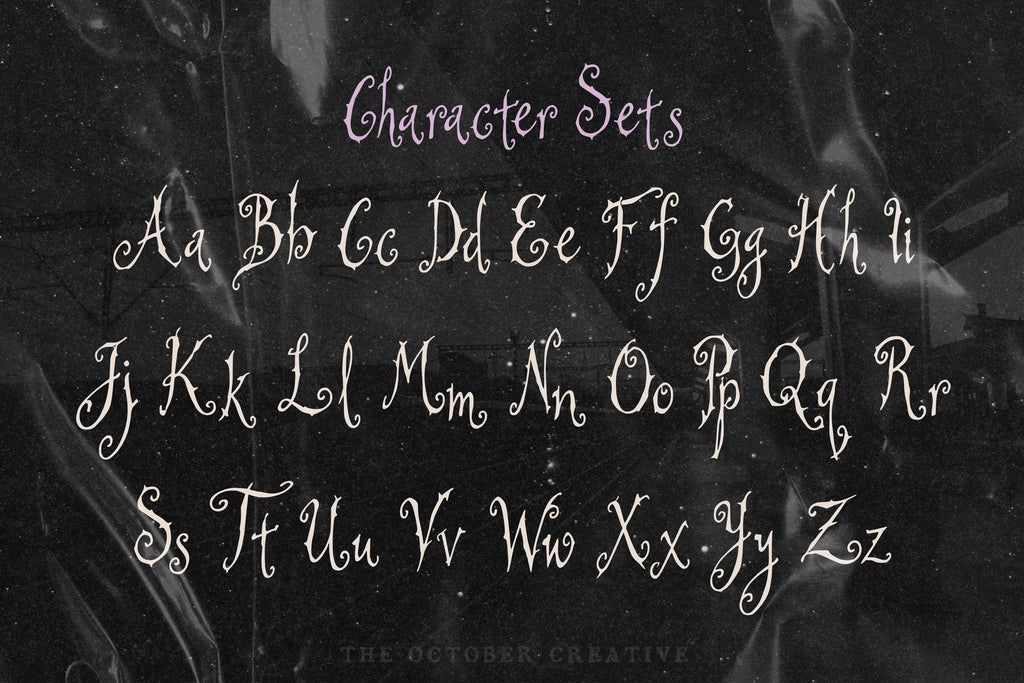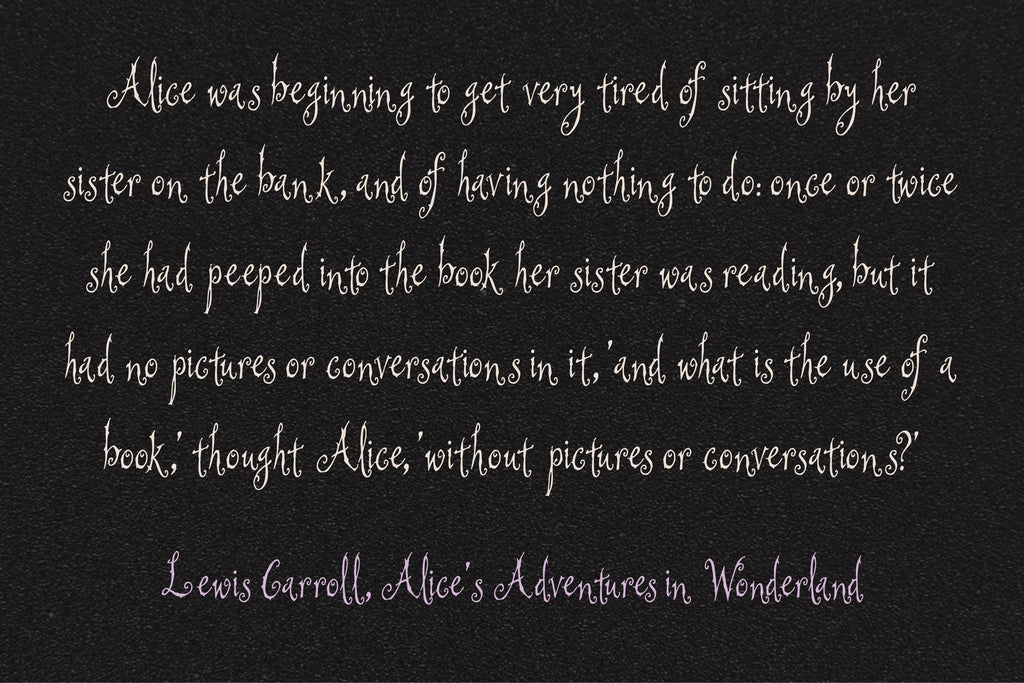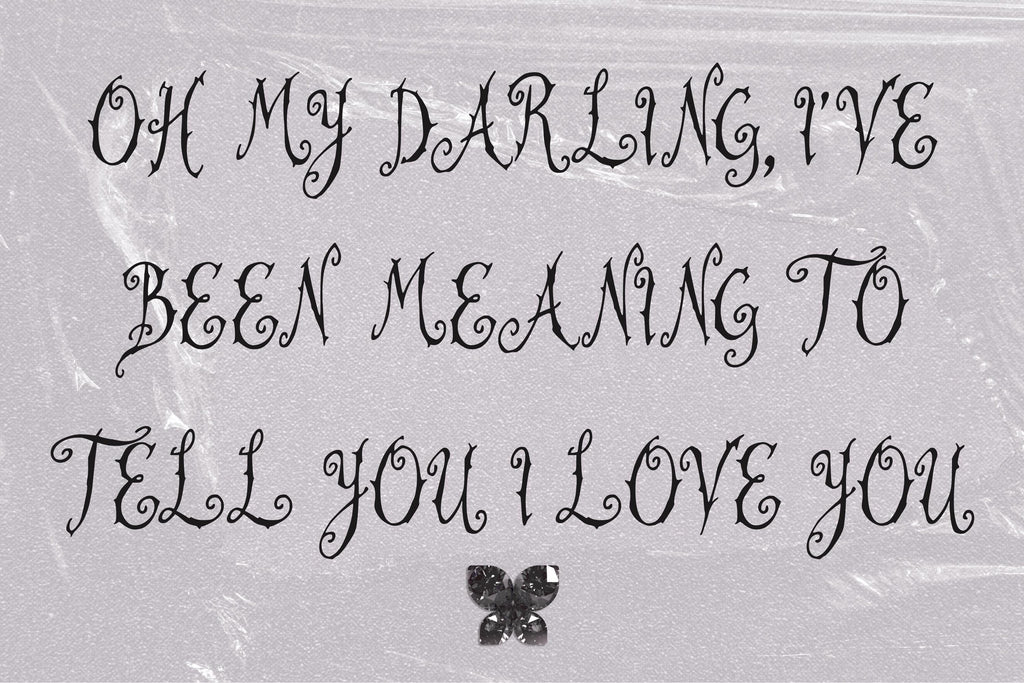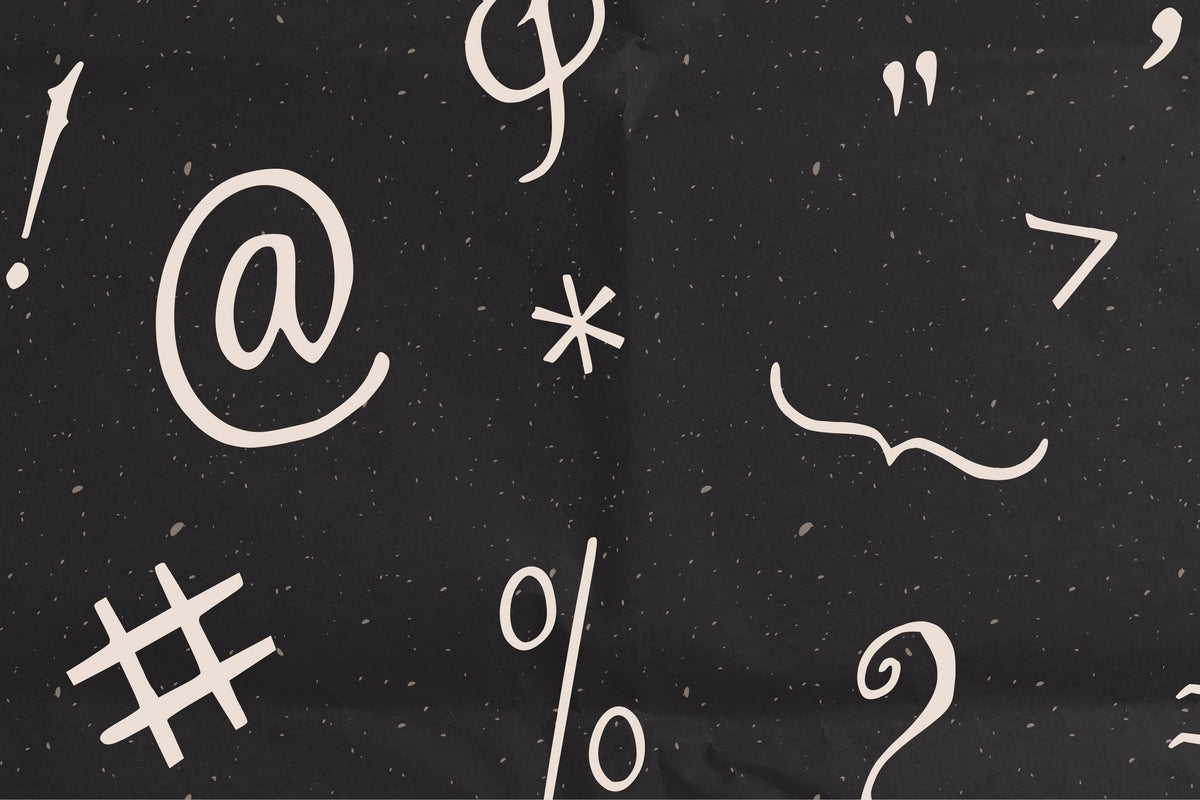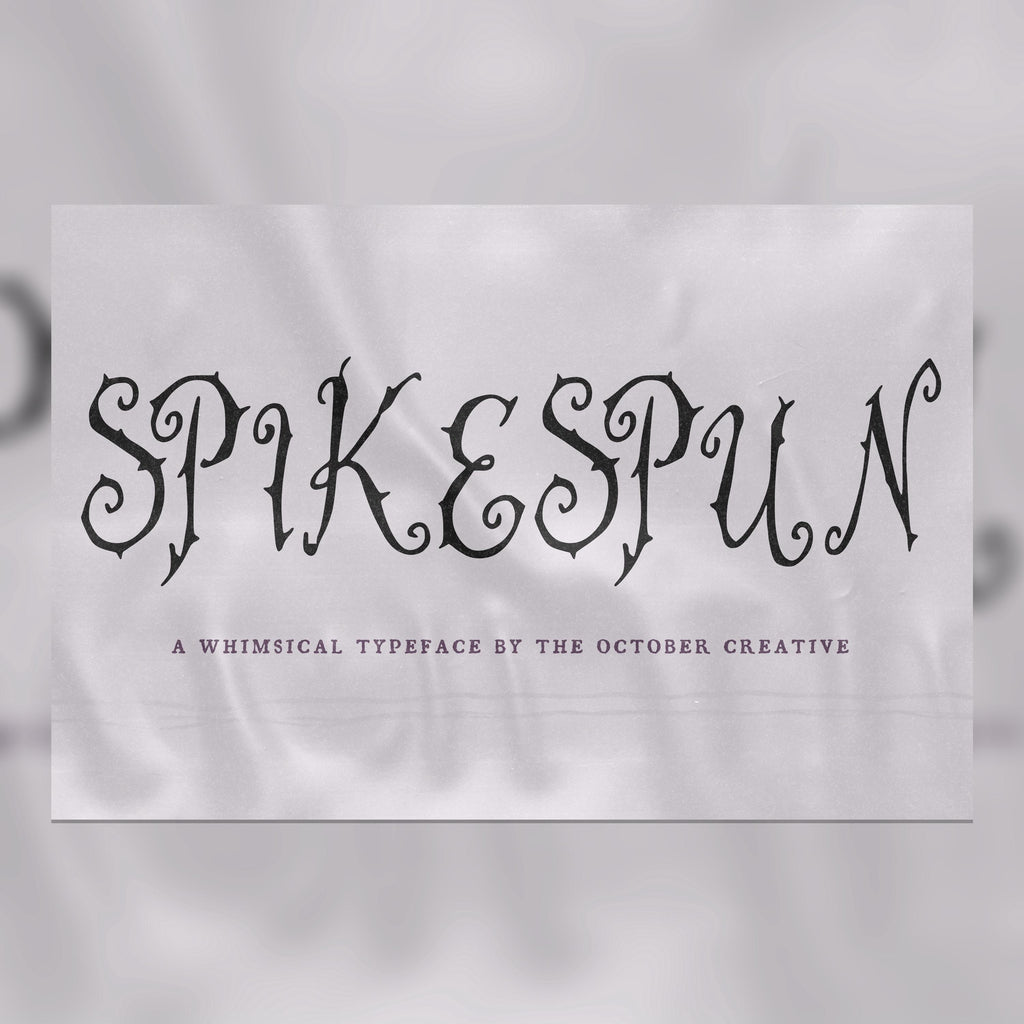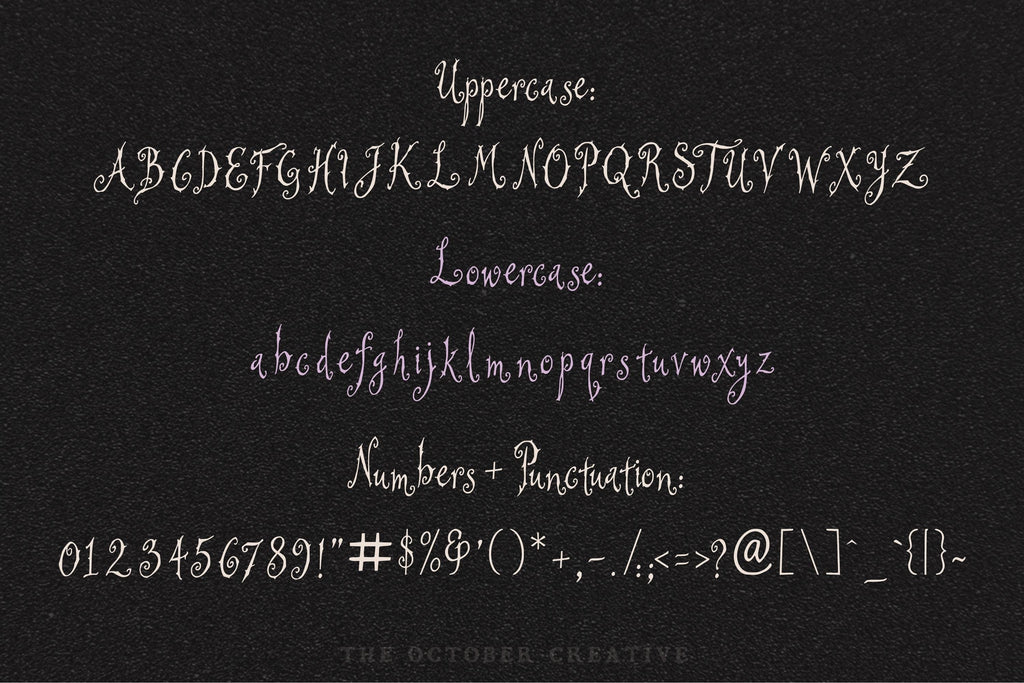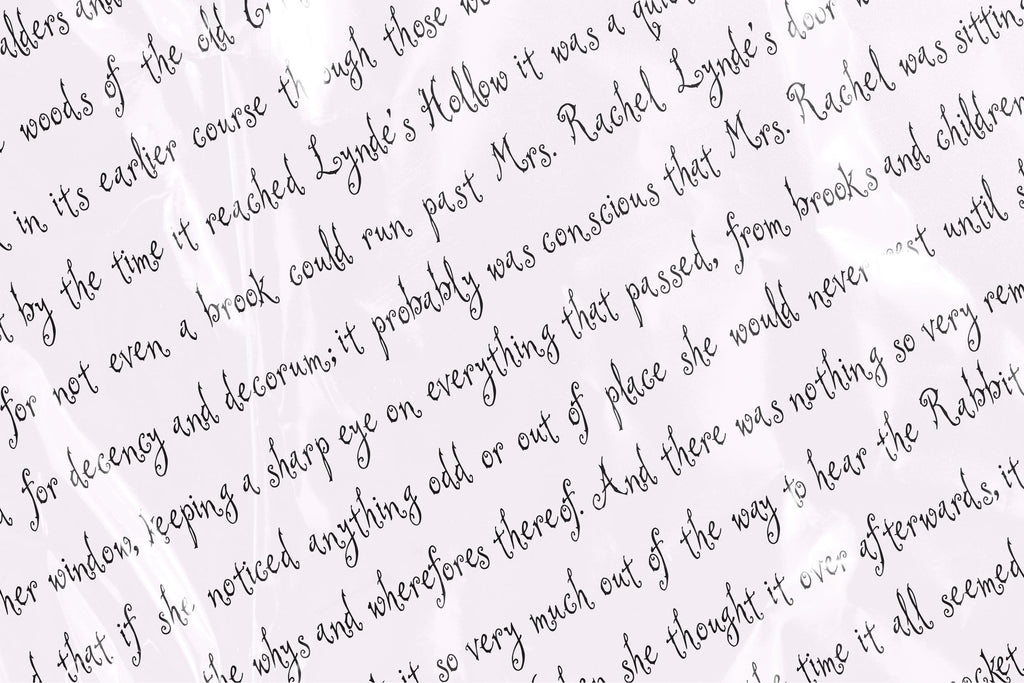
Spikespun Font
Spikespun gives delicate lettering a prickly little edge, with tiny barbs and pointed ends. Use it for witchy crafts, potion labels, and journal titles that would look right at home beside a bundle of dried herbs.
• One style: Spikespun Regular
• Uppercase A to Z, lowercase a to z, numbers 0 to 9, and every standard keyboard punctuation mark and symbol
• Curly quotes and apostrophes, dashes, an ellipsis, and a bullet
• Common accented letters for names, like José, Chloé, Zoë, Renée, and Françoise
• One Regular style, with no alternate characters or ligatures.